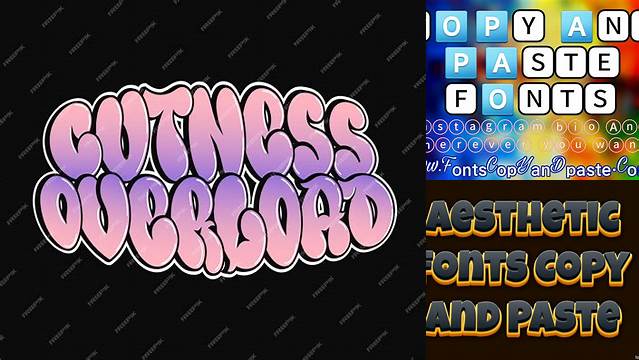
Get Cuteness Overload: Bold Fonts You Can Copy & Paste!
Hey everyone! Are you ready to inject some serious adorableness into your text game? We're diving headfirst into the world of cute bold fonts that you can easily copy and paste. Forget those boring, plain fonts β it's time to sprinkle some magic on your social media posts, your presentations, and even your everyday chats. Whether you're a social media guru, a student, or just someone who loves a little extra flair, this guide is your one-stop shop for all things cute and bold. We'll explore the best fonts, where to find them, and how to use them to make your text pop. Get ready to level up your font game and bring a smile to everyone's face!
1. Understanding the Magic of Cute Bold Fonts
So, what exactly makes a font cute and bold? It's a combo that's hard to resist! Cute bold fonts copy and paste because they are designed to grab attention while also being visually appealing. These fonts often incorporate playful elements like rounded edges, adorable flourishes, or even little hearts and stars. The bold aspect ensures your text stands out, making it perfect for headlines, emphasizing important points, or simply adding some personality. Think of it as the difference between a whisper and a shout β a cute bold font shouts in the most charming way possible. Unlike your standard, run-of-the-mill fonts, these are designed to be fun, engaging, and, well, undeniably cute. This is especially true for cute bold fonts copy and paste because you want it to be unique! This makes them a great choice for anyone looking to express themselves creatively or add a touch of whimsy to their content. These fonts are very easy to copy and paste. Because of this, you can now use them on social media, websites, and more! Understanding the basics of font styles, weights, and character sets helps you choose the right font for your needs.
2. Finding the Perfect Cute Bold Fonts: Where to Look
3. Copy and Paste: How to Use Cute Bold Fonts Anywhere
4. Cute Bold Fonts for Social Media: Level Up Your Posts
Social media is all about standing out, and what better way to do that than with cute bold fonts copy and paste? Whether you're on Instagram, Facebook, Twitter, or TikTok, these fonts can make your posts instantly more eye-catching. Think about your captions, your bios, and even your stories. A well-chosen cute bold font can transform a simple message into something fun and engaging. Use them for quotes, announcements, or to add emphasis to key phrases. Instagram especially loves a good font, so use them to create beautiful and unique content. But be mindful of your brand and the overall vibe you're going for. You want your font choices to reflect your personality and the message you're trying to convey. Experiment with different fonts to see which ones resonate best with your audience. Always remember that your profile's goal is to get a good first impression! Consider using a generator to get different fonts and try to use them on your profile. The copy and paste feature on font generators makes the process really easy.
5. Cute Bold Fonts for Branding: Creating a Unique Look
Want to build a brand that screams cute? Cute bold fonts copy and paste are a powerful tool for establishing a unique brand identity. Your font choices communicate a lot about your brand's personality and values. A cute bold font can instantly make your brand feel friendly, approachable, and fun. You can use these fonts on your logo, website headings, social media graphics, and even your business cards. It helps to create a consistent look and feel across all your branding materials. Consistency is key, so choose a font (or a couple of fonts) that represent your brand's personality and stick with them. Try creating a brand guide with your selected fonts, colors, and overall style to help you maintain a cohesive brand image. By using a custom font, you can easily copy and paste it to your text and use them on your brand.
6. Font Combinations: Pairing Cute and Bold Fonts Effectively
So, you've got your cute bold fonts, but what about pairing them? Mixing and matching fonts can be a fun way to add even more visual interest to your designs, but it's important to do it right. When working with cute bold fonts copy and paste, the trick is to find fonts that complement each other without clashing. Try pairing a bold, playful font with a simpler, more readable font for body text. This adds contrast and visual hierarchy. You can also experiment with combining different weights of the same font family. For example, you might use a bold version for headings and a regular version for the body text. Just be sure to choose fonts that share similar design characteristics, like the same x-height or stroke thickness. Avoid using too many different fonts in one design β it can quickly become overwhelming. Using different generators is a good way to test the combination. You can easily copy and paste them to see how they look.
7. Accessibility and Cute Bold Fonts: Considerations for Readability
While cute bold fonts are fun, it's essential to consider accessibility. Make sure that your font choices are readable, especially for people with visual impairments. Prioritize contrast β the text should stand out clearly against the background. Avoid using fonts that are overly intricate or have thin strokes, as they can be difficult to read at smaller sizes. Test your text at different sizes to ensure it remains legible. Consider using larger font sizes for headings and important information. Always think about your audience and strive to make your content accessible to everyone. Fortunately, many cute bold fonts copy and paste options are designed with readability in mind, so you don't have to sacrifice style for accessibility. You can easily copy and paste a large text and make it accessible.
8. Cute Bold Fonts for Websites: Making Your Site Pop
Want your website to be as cute as possible? Using cute bold fonts copy and paste is a fantastic way to achieve this. Choose fonts that reflect your website's overall design and tone. Use these fonts for headings, subheadings, and call-to-action buttons to create a visually appealing and engaging user experience. Make sure the fonts are easy to read on different devices and screen sizes. Experiment with different font sizes and weights to create visual interest and guide the reader's eye. Avoid using too many different fonts on your website β it can look cluttered. Instead, stick to a few fonts and use them consistently throughout your site. Make sure you can easily copy and paste the fonts you selected on your website. It's also a great way to boost your SEO.
9. Cute Bold Fonts for Presentations: Captivating Your Audience
Looking to make your presentations more memorable? Using cute bold fonts copy and paste can help you create slides that are visually appealing and easy to understand. Choose fonts that complement your presentation's topic and overall style. Use bold fonts for headings and key points to grab your audience's attention. Ensure your slides are easy to read from a distance β opt for larger font sizes. Use a consistent font and style throughout your presentation to maintain a professional look. Experiment with different color combinations to create a visually appealing presentation. You can easily copy and paste the fonts and use them on your presentations. Use these fonts to engage your audience.
10. Cute Bold Fonts in Design: Enhancing Your Creativity
Ready to unleash your inner designer? Cute bold fonts copy and paste can add a lot of character to your design projects. Whether you're creating posters, flyers, or social media graphics, the right font can make all the difference. Choose fonts that align with your project's theme and message. Consider the overall design and ensure the fonts complement the other design elements. Use bold fonts to create visual hierarchy and draw attention to important information. Experiment with different font sizes, weights, and styles to find what works best. Don't be afraid to get creative and try different font combinations. Use generators to get different fonts, then you can copy and paste them into your design.
11. The Psychology of Fonts: What Fonts Say About You
Did you know that fonts can convey different messages? Fonts have a certain personality and can evoke emotions. The same is true for cute bold fonts copy and paste. Fonts affect how your audience perceives your message. Cute fonts are often associated with friendliness, playfulness, and approachability. Bold fonts are often associated with confidence, strength, and emphasis. The use of cute bold fonts copy and paste can signal that your message is fun and engaging, while the boldness adds to your credibility. Choosing the right font can make a big difference in how your audience interprets your message. Consider your audience and the message you want to convey when selecting a font. You must pick the right font to match your personality.
12. Cute Bold Fonts for Different Themes: Matching Styles
Want to take your font game to the next level? Matching the right font to your theme is key! If you are using cute bold fonts copy and paste, you should know that they also come in a variety of styles, perfect for different themes. For example, a kawaii-themed project might use a rounded, bubbly font, while a more adventurous theme might use a bolder, more energetic font. Use different fonts for birthdays, weddings, or other specific occasions. For a retro theme, try vintage or script fonts. A good way to match a font with your theme is to use a generator. You can easily copy and paste the font and use it for a specific theme.
13. Customizing Cute Bold Fonts: Making Them Your Own
Want to put your own twist on your favorite fonts? It's easier than you think! A good way to do so is by customizing your cute bold fonts copy and paste. Some font generators allow you to customize the font. You can make the fonts yours! By changing their size, color, or even adding special characters or glyphs. This customization level adds a personal touch to your text. Make sure you're aware of any licensing restrictions before you start modifying a font. You can also make the text more accessible. By customizing your font, you can make it uniquely yours. It's really easy to copy and paste your customized text.
14. Best Cute Bold Fonts for Beginners: Easy Choices
If you're new to the world of cute fonts, where do you start? Luckily, there are tons of easy-to-use fonts to pick from. When selecting a font, choose fonts that are visually appealing and easy to read. For beginners, stick to fonts that are well-designed and have a clear personality. When using a font, you should always copy and paste it to see how it looks. These are all ideal choices if you're starting out with cute bold fonts copy and paste. Remember, the most important thing is to experiment and have fun finding fonts that you like.
15. Copyright and Licensing: Legal Considerations
Before you start using those amazing cute bold fonts copy and paste, it's important to understand copyright and licensing. Many fonts have specific licensing terms, such as free for personal use but requiring a license for commercial use. Always check the font's licensing agreement before using it in your projects. Failure to comply can lead to legal issues. Knowing how the font is licensed will help you avoid legal problems. If you're unsure, it's always best to err on the side of caution and contact the font's designer or provider. Also, don't forget to check if the font can be copy and paste.
16. Cute Bold Fonts for Emojis and Symbols: Enhancing Expression
Want to take your text game even further? Cute bold fonts copy and paste can also be used to create emojis and symbols. Combining these cute fonts with emojis and symbols can add extra expression to your texts. To do this, you can use font generators. Then, you can copy and paste these enhanced characters anywhere. This is perfect for social media or chats to make your text more expressive. Make your text fun and engaging by using cute fonts and emojis!
17. Cute Bold Fonts for Mobile Devices: Optimizing for Phones
Do you want your text to look great on mobile devices? Make sure your cute bold fonts copy and paste are mobile-friendly. When selecting fonts for mobile, make sure your fonts are readable on smaller screens. Choose fonts with clear letterforms that are easy to see and understand, even when shrunk down. Test your fonts on different devices to ensure they render correctly and maintain their visual appeal. Test it by copy and pasting your text into different devices to see the result. You can make sure your fonts are optimized by using generators that support a mobile view.
18. The Future of Fonts: Trends and Predictions
What does the future hold for fonts? The world of fonts is always evolving, with new trends and styles constantly emerging. If you're interested in cute bold fonts copy and paste, you should stay ahead of the curve! Designers are now embracing variable fonts. These allow for a single font file to adapt to different weights and styles. There is also increased emphasis on inclusive design. This means fonts that are designed to be accessible to everyone. Keep an eye on emerging trends and innovations to keep your font game fresh. Always copy and paste to check the result.
19. Advanced Font Techniques: Beyond the Basics
Ready to take your font skills to the next level? Beyond the basics of cute bold fonts copy and paste, there are some advanced techniques. Use them to take your font game to new heights. Explore techniques like kerning. That is the spacing between characters. Also, ligatures, which are special characters that combine two or more letters into a single glyph. Experiment with text effects, such as outlines and shadows, to make your fonts pop. Use advanced features in design software to create custom typography. Use these methods to make your text unique. You can also easily copy and paste your new text! Remember to practice and experiment to refine your skills.
20. Troubleshooting Common Font Issues: Solutions and Fixes
Sometimes, you might encounter issues when using cute bold fonts copy and paste. The text might look different on different devices or have rendering issues. One common issue is font compatibility. You can fix this issue by using standard font formats. Another issue is font rendering. To solve this, you can try clearing your browser cache. Make sure the font is installed correctly on your computer or device. If all else fails, use a font generator. You can copy and paste your text without any issues.
21. Cute Bold Fonts and the Art of Emphasis: Highlighting Key Words
Want to make sure your message gets noticed? Use cute bold fonts copy and paste to emphasize key words! Strategic use of these fonts can draw attention to your important information. Use bold fonts to highlight important points, phrases, and names. Choose font sizes that are appropriate for your content. By emphasizing keywords, you make it easier for your audience to understand the key points. The bold font will make it easier for people to see the emphasis on your text. To emphasize, copy and paste the text that you want to make stand out!
22. Choosing the Right Font: Matching the Message to the Style
Choosing the right font is about matching the style to your message. Cute bold fonts copy and paste can send a message to your audience. A bold, playful font might be great for a fun project, but it wouldn't fit a formal document. Consider your audience, your message, and the overall tone you want to create. Selecting a font that complements your content is essential for effective communication. Think about what your message is, and what kind of audience you have. After that, you can select a font. You can copy and paste your text once you're done!
23. Font Generators and Websites: Tools of the Trade
The internet is filled with tools for cute bold fonts copy and paste. These tools are incredibly useful, letting you type your text and then choose from tons of fonts. These generators and websites make it easy to find the perfect font. They offer a range of features, from basic text formatting to advanced customization options. Whether you are a professional designer or a social media enthusiast, these tools are essential. Most generators have a simple interface. After you're done, you can easily copy and paste your text.
24. Cute Bold Fonts for Handwritten Styles: Adding a Personal Touch
Want to add a touch of personal style? Cute bold fonts can be used for handwritten styles. There are a lot of fonts that have a handwritten look and feel. They give off a personal and approachable vibe. These fonts are ideal for creating a casual, friendly style. To personalize your text, you can use cute bold fonts copy and paste. These are perfect for social media captions, logos, and more. The personal touch can also be seen with the copy and paste fonts.
25. Color and Fonts: Enhancing Visual Appeal
Color and font choices go hand in hand! Color can significantly enhance the visual appeal of the cute bold fonts copy and paste. Consider using a color that complements your overall design. Choose colors that are easy to read and have good contrast. Experiment with different color combinations to find what works best for your text. Using different colors will help your text be visible and appealing. Make sure your colors do not ruin the copy and paste fonts.
26. Beyond Aesthetics: The Practical Uses of Cute Bold Fonts
While cute bold fonts are visually appealing, they also have practical uses. Using cute bold fonts copy and paste can improve your texts. They can make your text look good, but also improve your design. By improving the text design, you're also improving the user experience. With the right fonts, you can enhance your message. All of this contributes to a better design. With a good design, you can easily copy and paste your text.
27. Finding Inspiration: The Best Examples of Cute Bold Fonts in Action
Need some inspiration? Looking at the best examples of cute bold fonts copy and paste can help you a lot! You can search for the best uses of fonts in your field. By looking at these, you'll see what font you need. Study how others are using cute bold fonts to their advantage. These are just some examples. You can copy and paste fonts to imitate the style.
28. The Future of Font Usage: New Trends and Techniques
The future of font usage is always changing! With new trends constantly emerging, so is cute bold fonts copy and paste. Variable fonts are becoming popular, allowing for adjustable weights and styles. Other designers are creating more accessible fonts. Also, the use of custom fonts are becoming more common. Keep in mind the latest trends and techniques. You can use these tips to copy and paste your texts.
29. Mastering the Art of Copy and Paste: Tips and Tricks
Mastering the art of copy and paste is about more than just copying and pasting. To make your text unique, use these tips and tricks. Make sure to select the text accurately. Use keyboard shortcuts for a faster copy-pasting process. Once you're done, you can easily copy and paste your text. You can now use it to your heart's content!
30. Conclusion: Unleash Your Font-tastic Creativity!
And there you have it, folks! You're now armed with the knowledge to find, use, and absolutely rock those cute bold fonts copy and paste options. Go forth, experiment, and most importantly, have fun. Let your creativity shine, and don't be afraid to get a little bit extra! So, start exploring, start creating, and get ready to unleash your font-tastic creativity on the world. Remember to keep it cute, keep it bold, and keep it uniquely you! And always remember the simple joy of a good copy and paste β it's the secret weapon of the font-tastic!